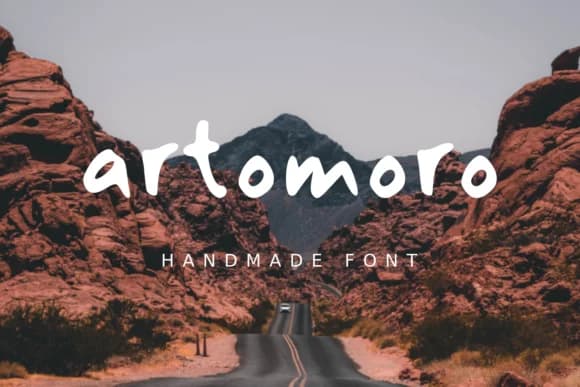
Artomoro by zuzulgo studio is a handwritten script font with authentic, organic character that captures the warmth of genuine pen strokes. This natural letterform style brings a personal touch to designs where sincerity and individuality matter most. The font shines across a range of creative applications. It's particularly well-suited for wedding invitation suites, where its flowing letters add elegance without feeling overly formal. Artomoro works beautifully for greeting card designs, personal stationery, and custom brand identities that benefit from a human, approachable aesthetic. Small businesses often use this style for artisan product packaging and label design, especially for handmade goods, boutique cosmetics, and specialty food items. The letterforms also lend themselves well to decorative social media graphics, blog headers, and event branding where personality and distinction are valued. Whether you're creating restaurant menu covers, crafting thank you cards, designing Etsy shop branding, or developing a cohesive visual identity that feels genuinely handmade, Artomoro delivers consistent quality with distinctive character. Its accessible warmth makes it an excellent choice whenever you want your design to feel thoughtful and intentional. Get the font on Creative Fabrica and add authentic handwritten charm to your creative projects.
- Elegant, Flowing, Artomoro
Artomoro Font is a script font that shines as a display or heading face. Pair it with a clean sans-serif or serif font for body text β the contrast creates a clear hierarchy while the two styles stay balanced and easy to read.